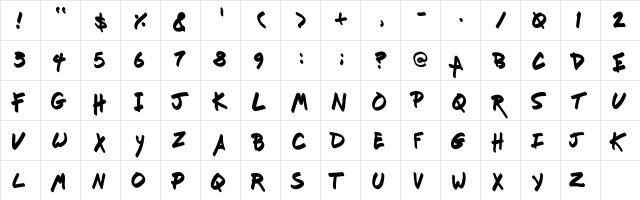
Fresh Marker Regular
| Foundry | John Gauthier |
| Designer | John Gauthier |
Design Context for Fresh Marker Typeface
Fresh Marker is a composed and adaptable typeface that performs quietly and consistently across a wide range of design contexts.